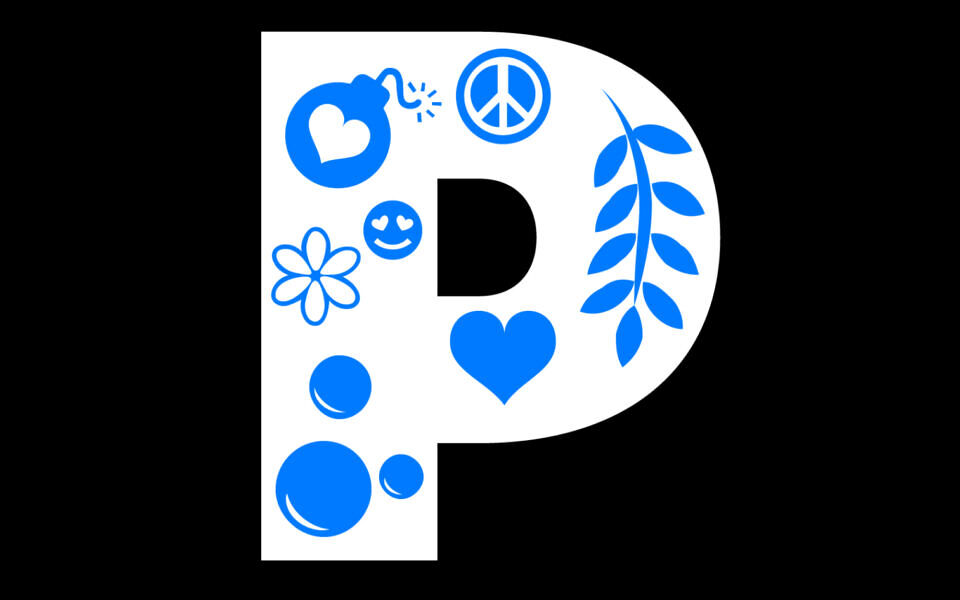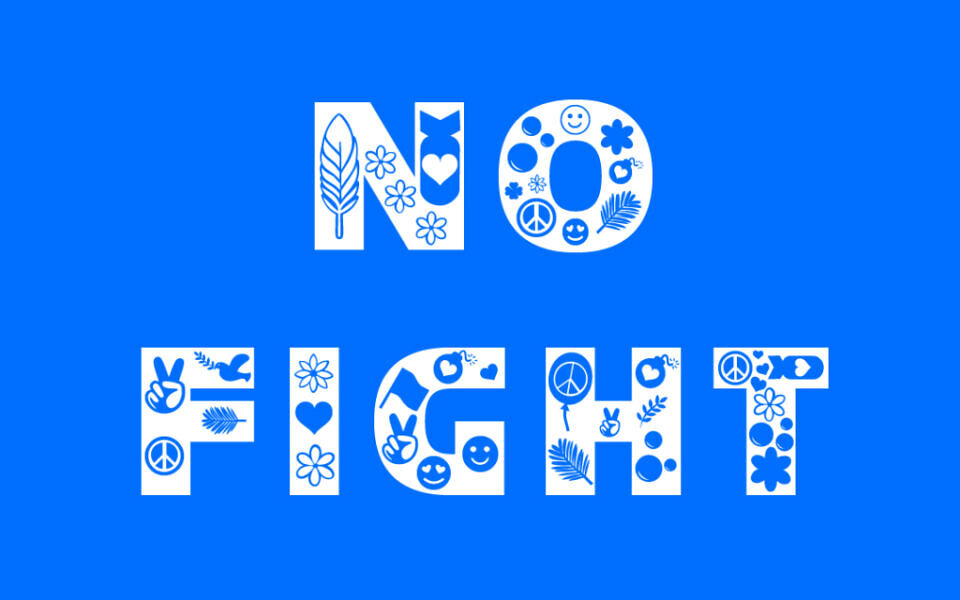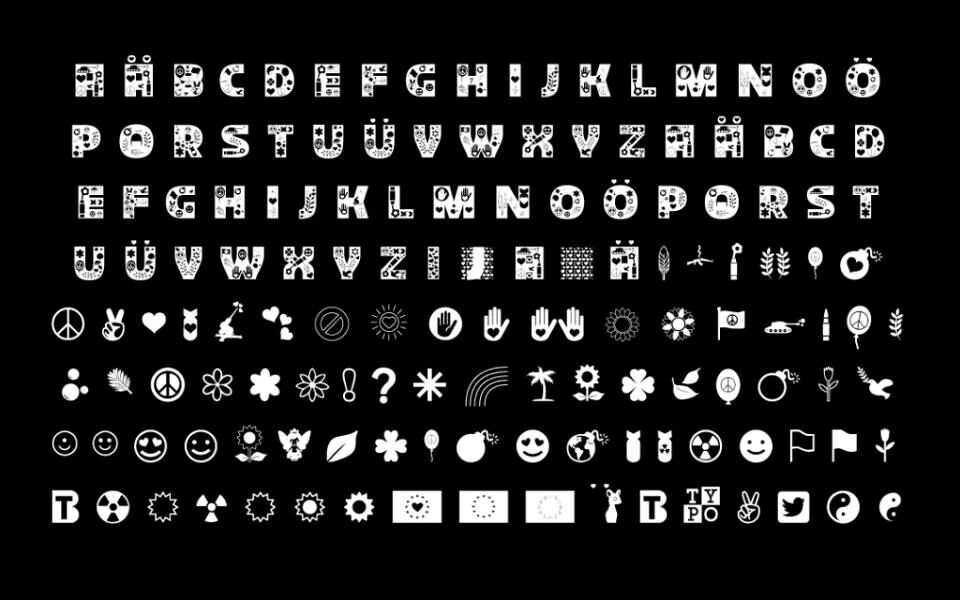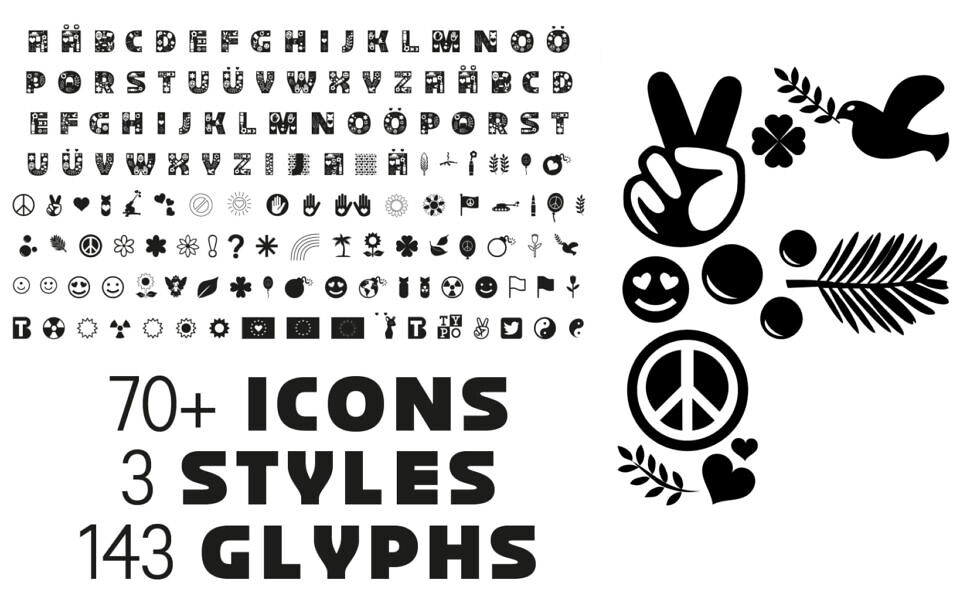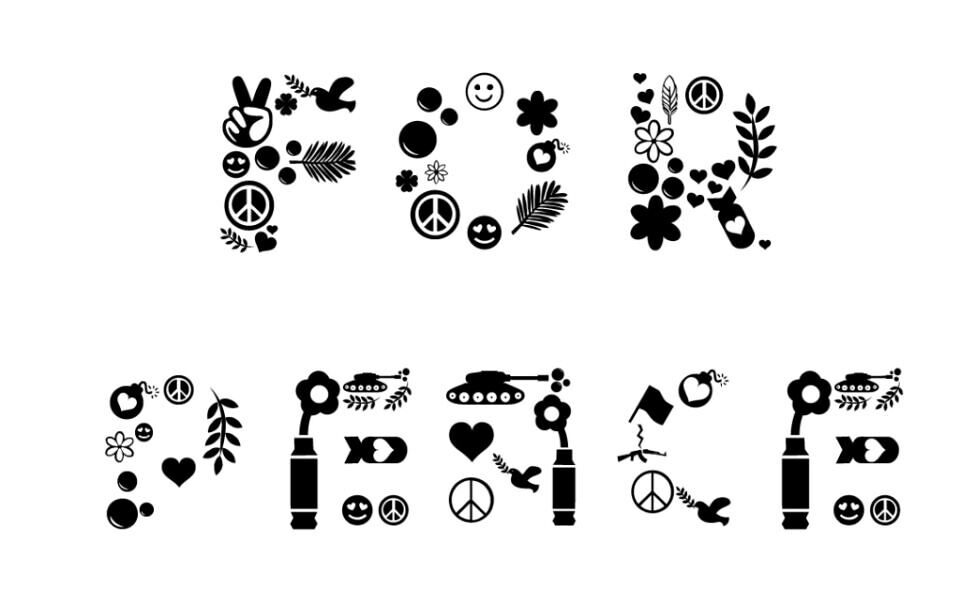
Peace Font is a free OFL-licensed display typeface offering a bold, layered aesthetic — perfect for eye-catching headlines, posters, logos or magazine covers. It includes three styles (Letters, Texture and Combine Layer) with 143 glyphs — among them over 70 peace-themed icons and symbols (hearts, peace signs, etc.).
The design blends strong letterforms and artistic textures to deliver a lively, expressive yet balanced typography that works great at large sizes. Use it to add a modern, creative, and socially conscious vibe to your projects — while remaining fully free for personal or commercial use.